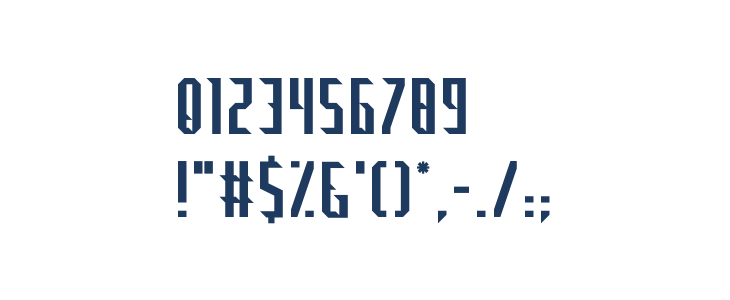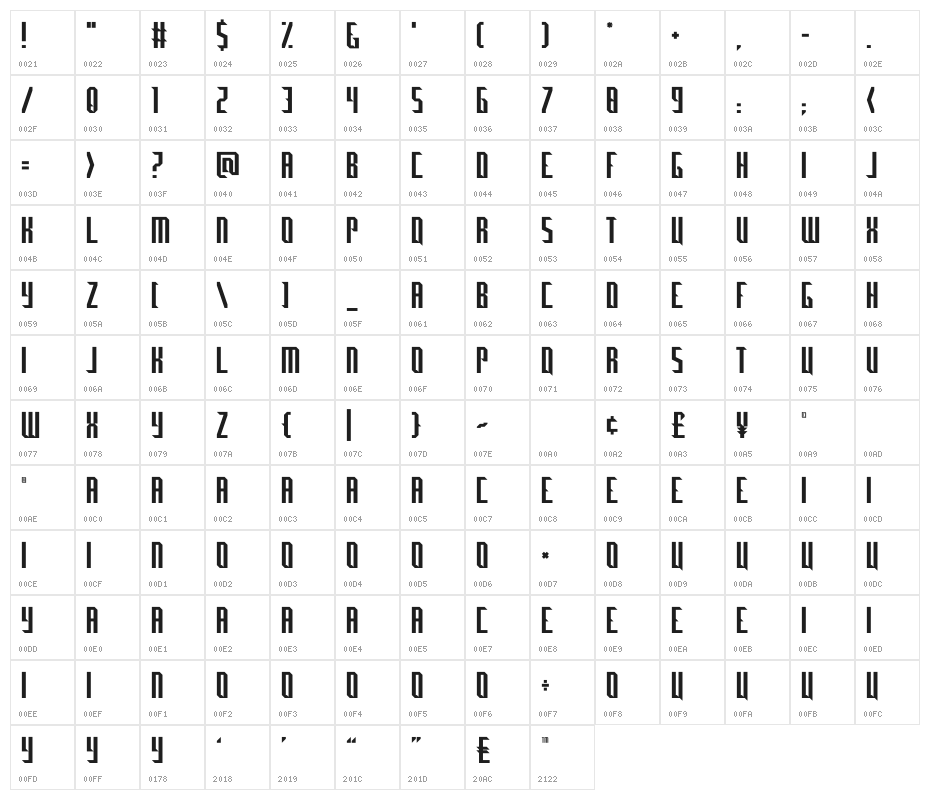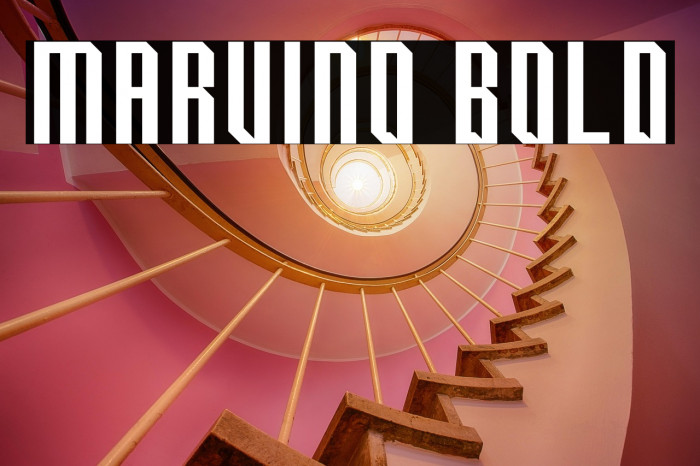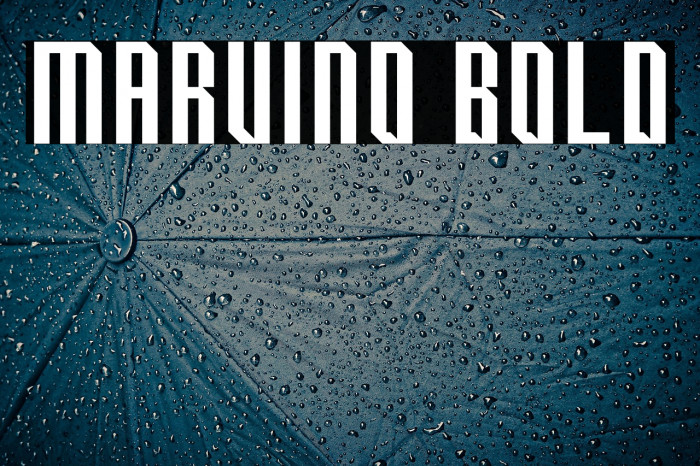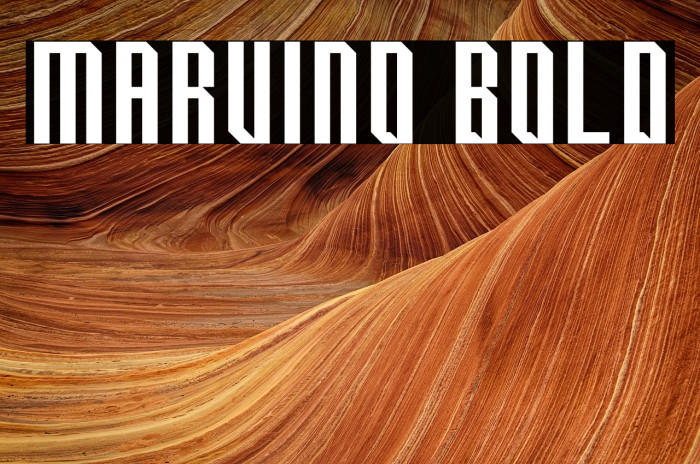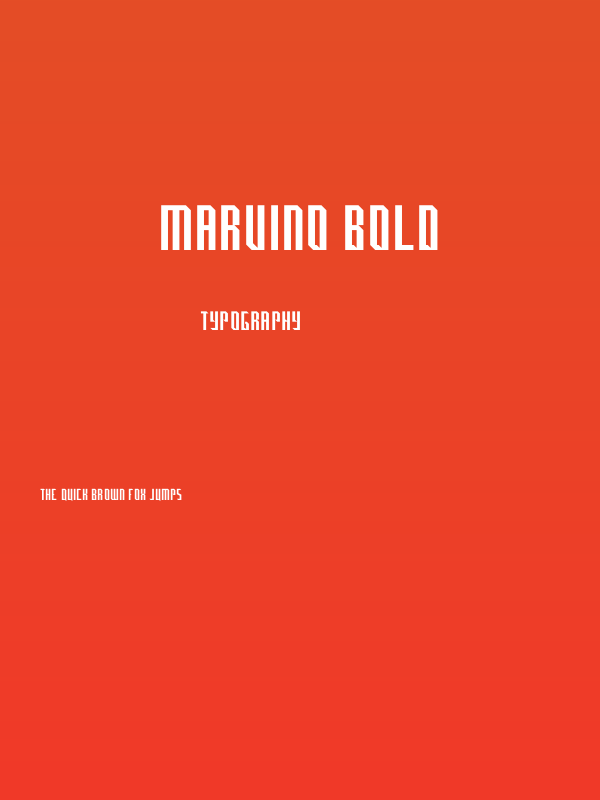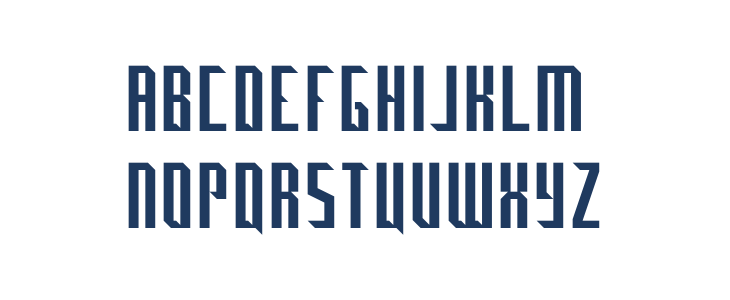
Marvino Bold Font
Marvino Bold Description
This font features a bold and geometric design with sharp angles and a modern aesthetic. The uppercase letters are characterized by their uniform height and consistent stroke width, giving a strong and impactful appearance. The numerals and special characters maintain this bold style, ensuring a cohesive look across all characters. The font's structure is clean and precise, making it suitable for attention-grabbing headlines and titles. Its distinct and edgy style makes it ideal for projects that require a contemporary and assertive visual impact.
| Proposed Projects | Ideal for headlines, posters, branding, and any project needing a strong visual impact. |